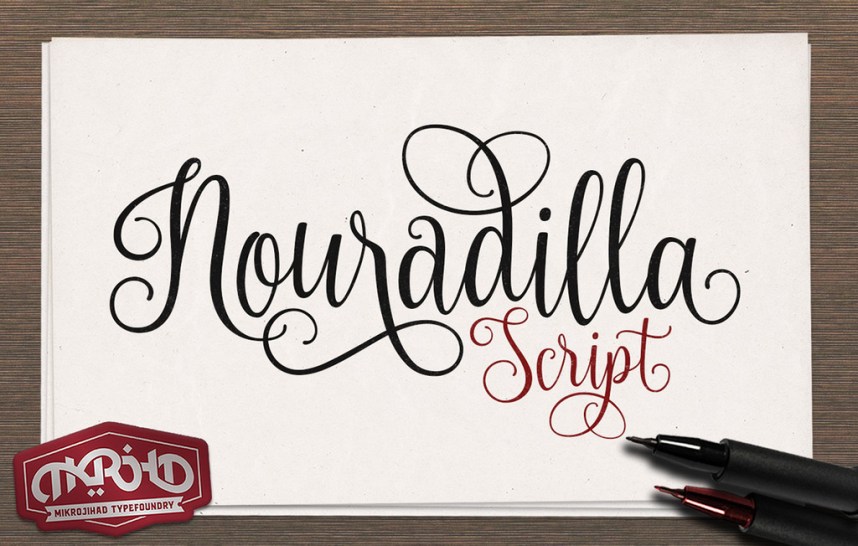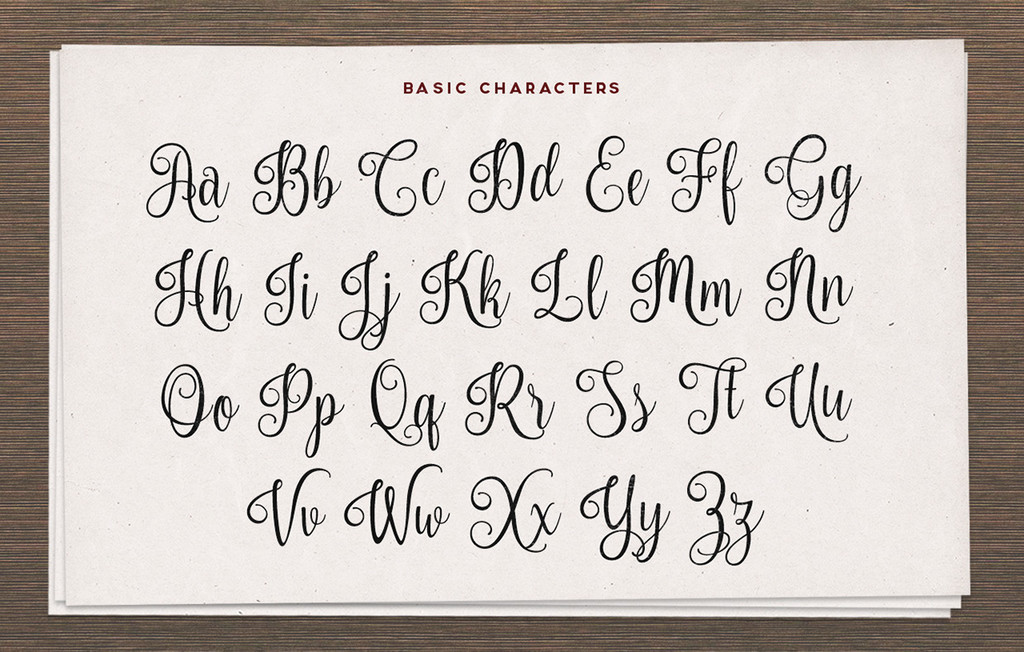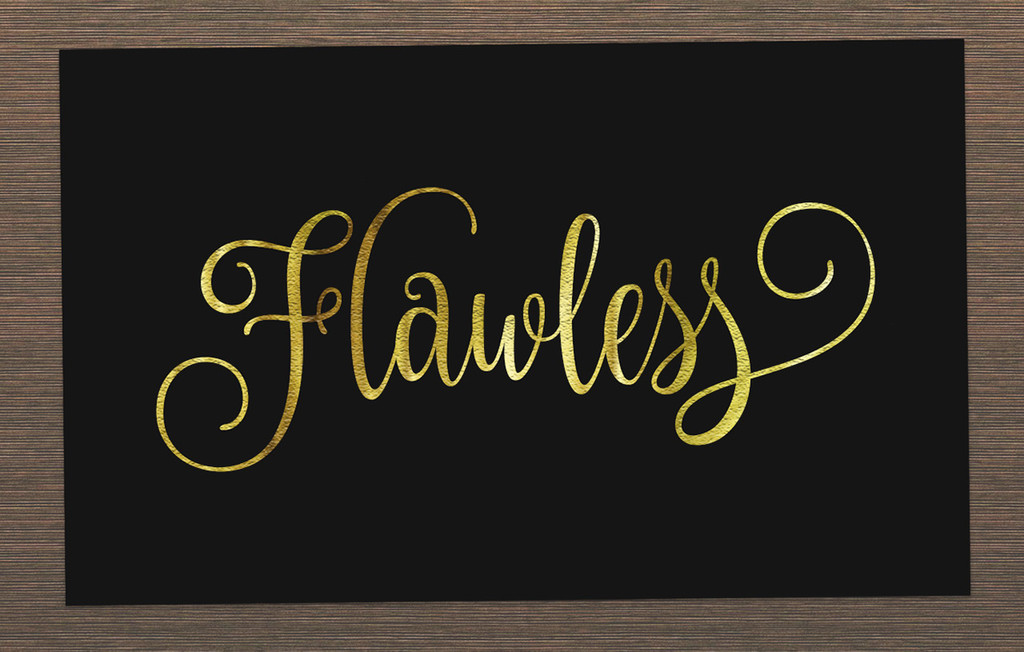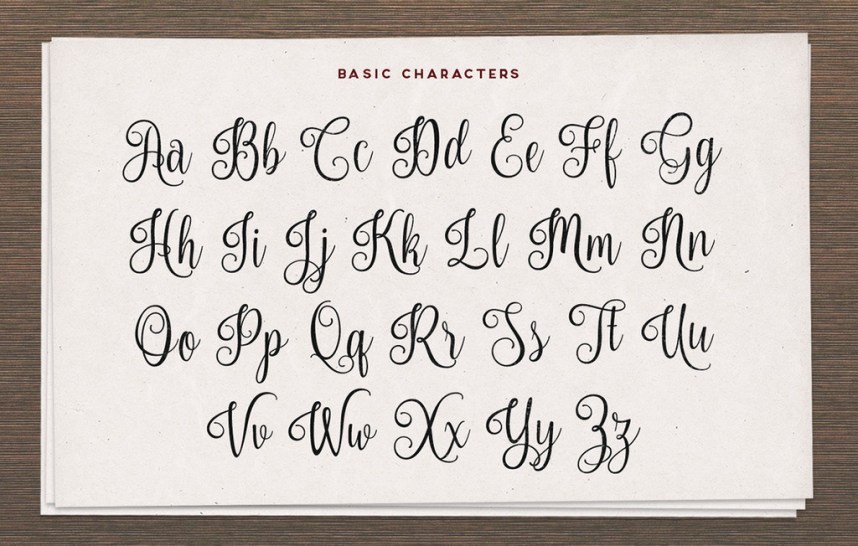
Nouradilla-Font
Nouradilla is experimentally Modern Calligraphy Typeface with up and down baseline. Total 413 Glyphs. Support Stylistic Alternates, Ligature, Contextual Alternate and Stylistic set ( up to 16 variants per letters). Just mix and match all the alternates.